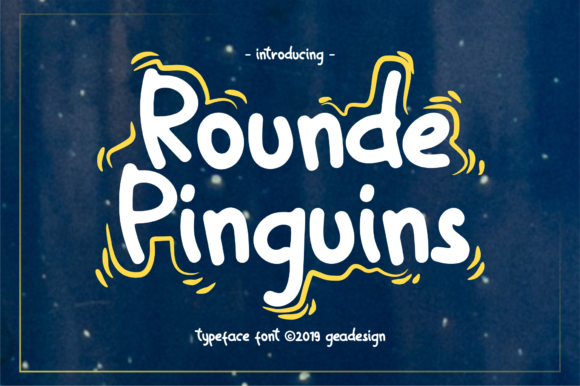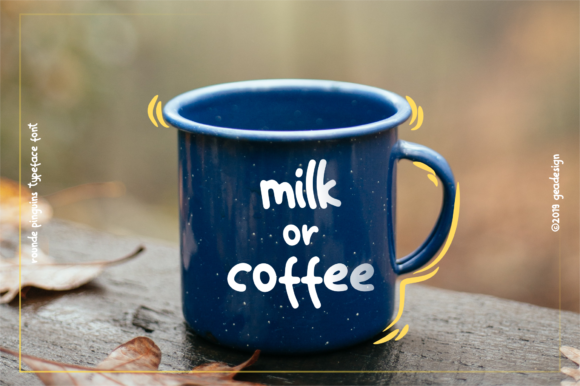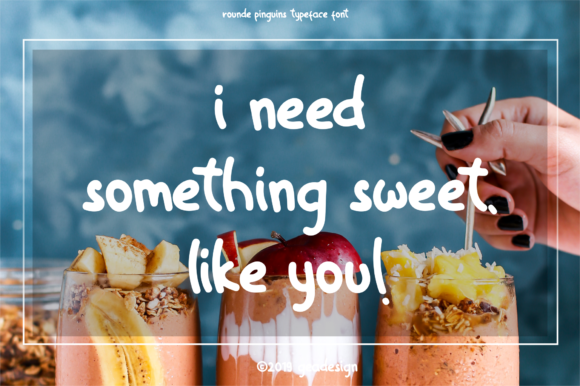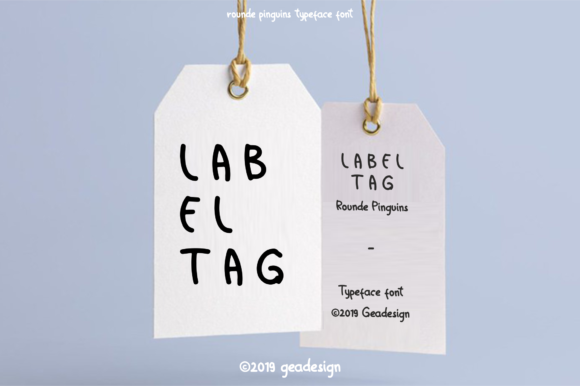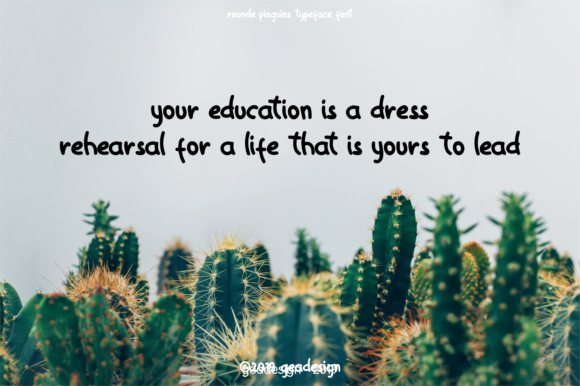
Rounde Pinguins Font
About Rounde Pinguins Font
The Rounde Pinguins is a cute handwritten font. It has a fun and playful touch which can be used for branding, quotes, posters, and much more!